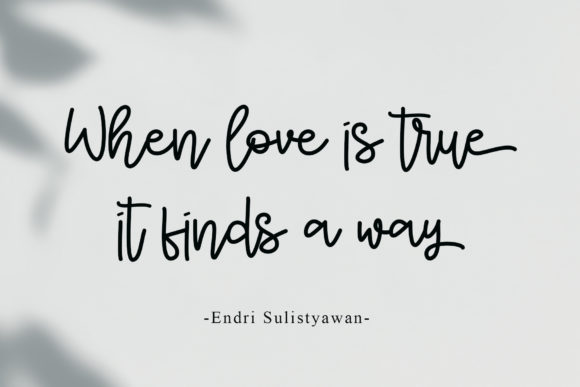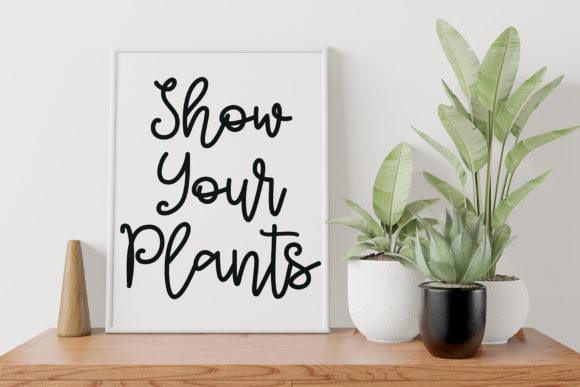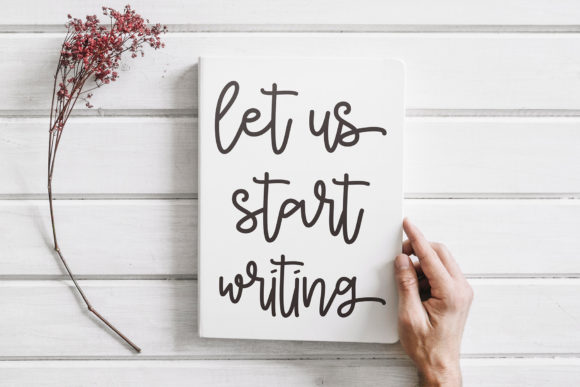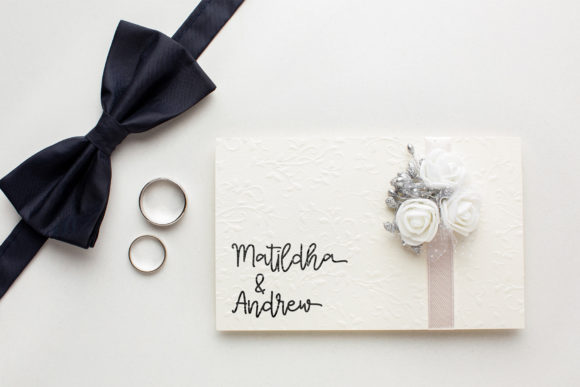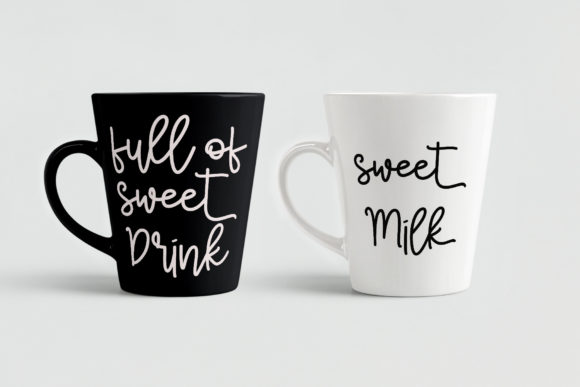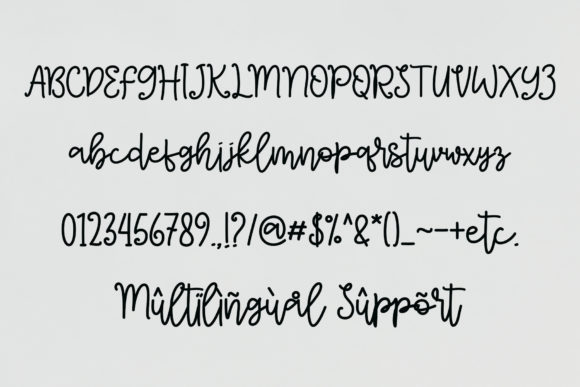
Introduction to Seritta Font
As a designer, there’s nothing quite like the thrill of bringing a creative project to life. It’s the moment when your ideas, scribbled down on a piece of paper, start to take shape on the screen. You’re searching for the perfect font to add that extra touch of personality to your design, and then it hits you – the perfect combination of style and charm. For many designers, that perfect font is the Seritta Font, a sweet and friendly handwritten font that adds a touch of whimsy to any design.
What makes the Seritta Font truly special is its natural and unique style, which makes it incredibly fitting to a wide range of designs. Whether you’re working on a free download project or a high-quality commercial design, the Seritta Font is a valuable resource that’s sure to elevate your work.
Key Features of Seritta Font
- Unique, elegant script font with a transparent background, ideal for adding a touch of sophistication to designs.
- Perfect for use in wedding invitations, quotes, and other creative projects that require a beautiful, handwritten font.
- Easy to customize and use, thanks to its intuitive design and wide range of font styles.
Honest Review: Seritta Font
I recently had the chance to work with the Seritta Font, and I’m excited to share my thoughts on this design resource. Overall, I was impressed with the quality and versatility of this font.
- High-quality design: The Seritta Font has a clean, modern aesthetic that works well for a variety of creative projects.
- Transparent background: The font has a transparent background, which allows for seamless integration with other design elements.
- Limited character set: While the font has a wide range of characters, I found that it lacks some of the more specialized characters that I needed for a specific project.
- No bold or italic options: Unfortunately, the font does not include bold or italic options, which can limit its use in certain design contexts.
Overall, I was pleased with the Seritta Font, and I appreciate the value it offers as a free design resource. While it may have some limitations, I would recommend it to designers looking for a high-quality, modern font for their creative projects.
The Seritta Font is a high-quality, free design resource that can elevate your creative project. This font is perfect for designers and non-designers alike, offering a unique and stylish aesthetic.
Tips for Getting the Most Out of Seritta Font
To get the most out of the Seritta Font, use it with a transparent background to create a stylish and modern look. You can also pair it with other fonts to create a unique and eye-catching design.
The Seritta Font is perfect for a variety of creative projects, including graphics, presentations, and social media posts. It’s also great for use in logos, branding, and marketing materials.